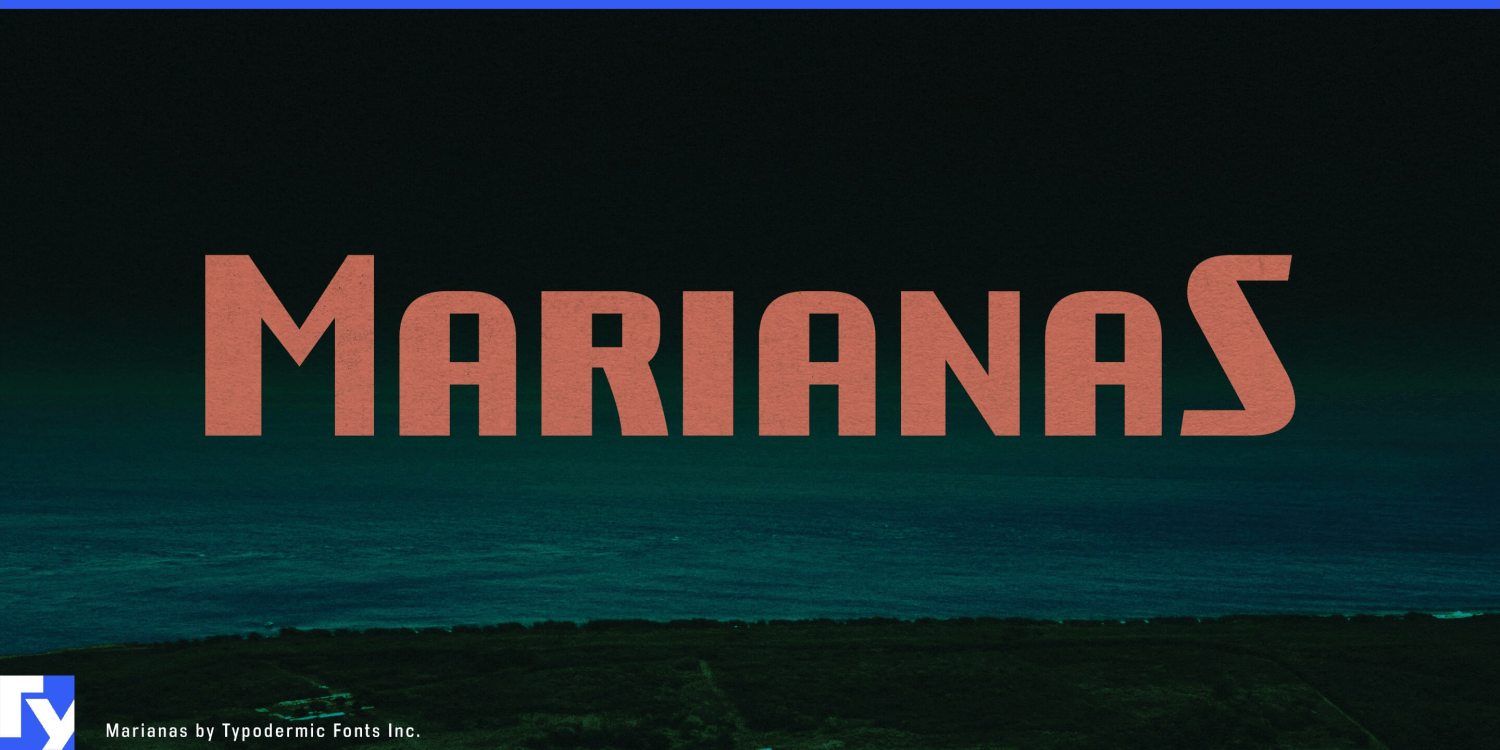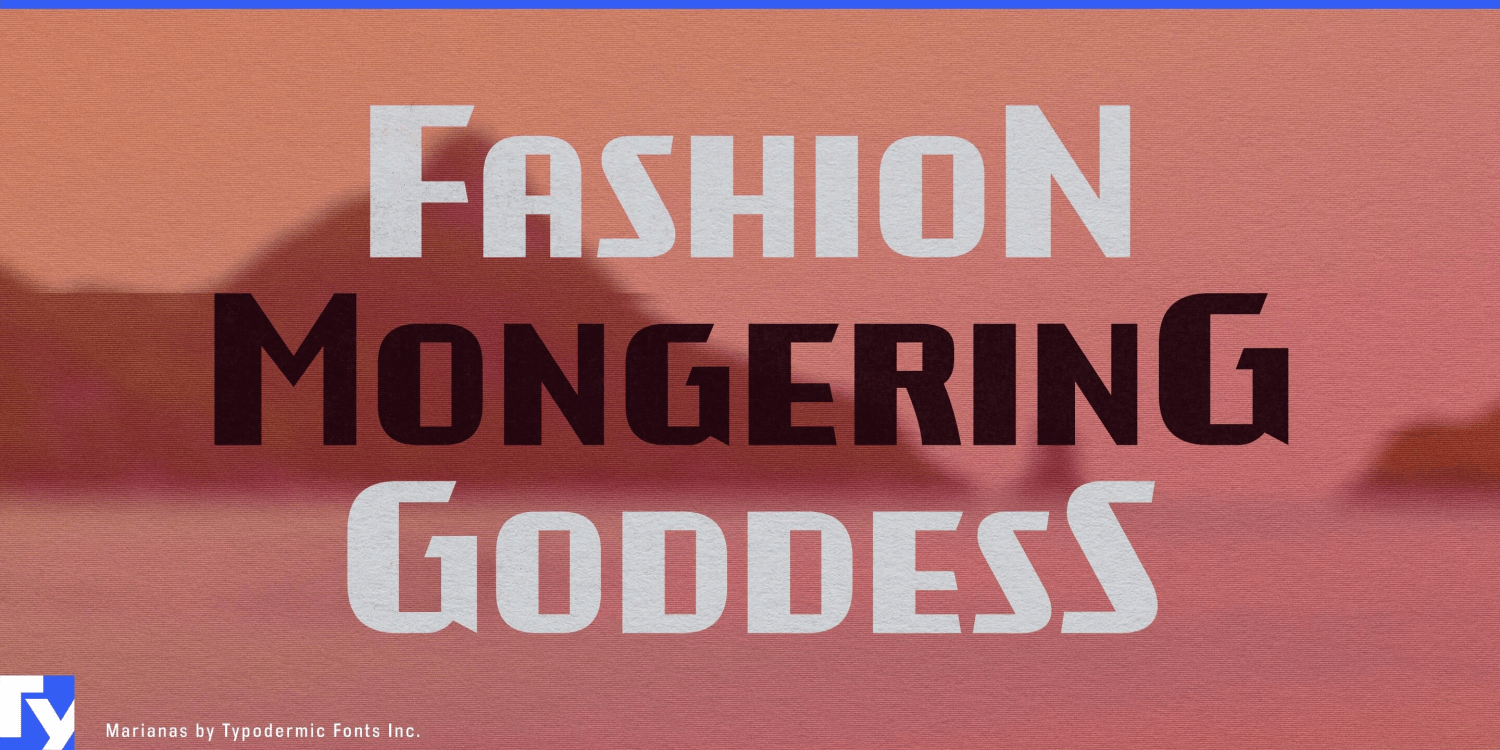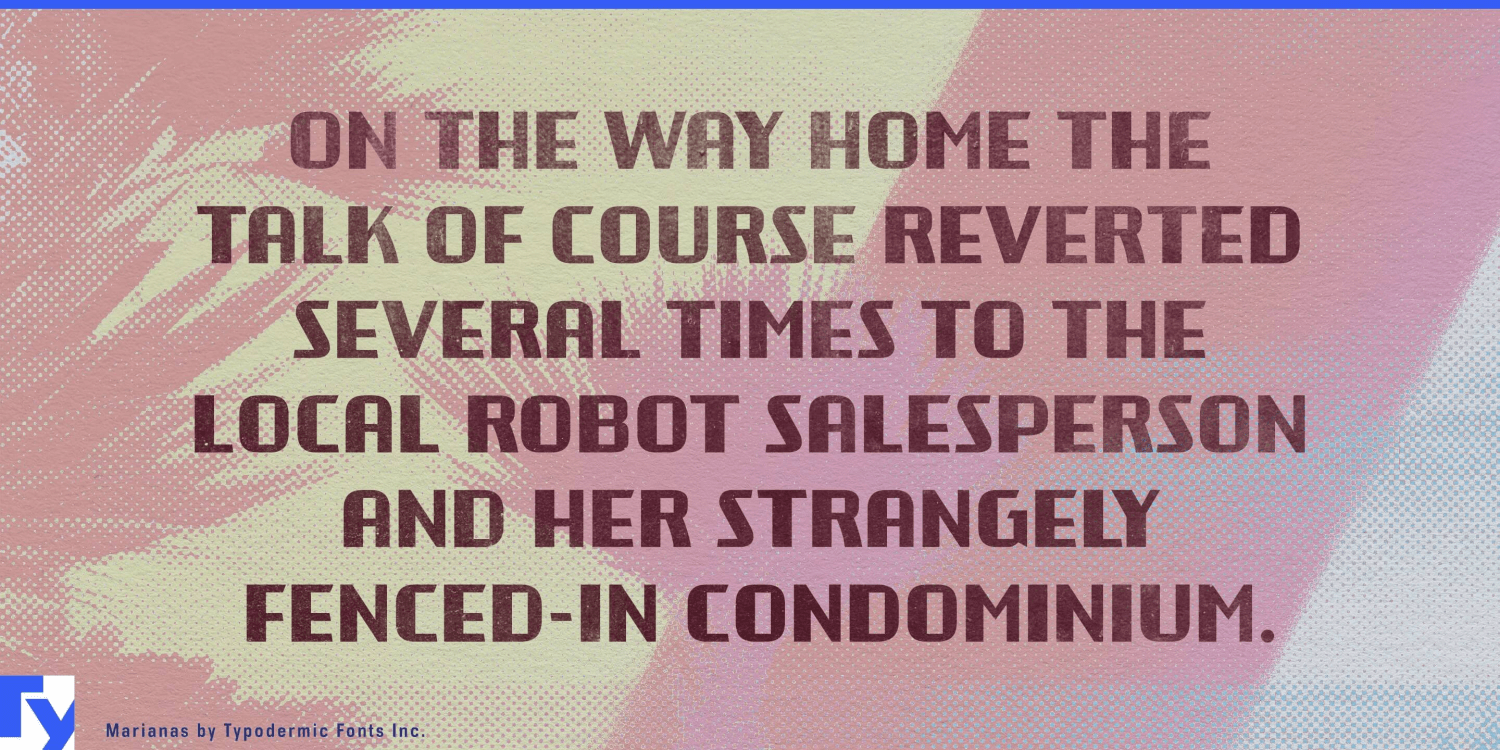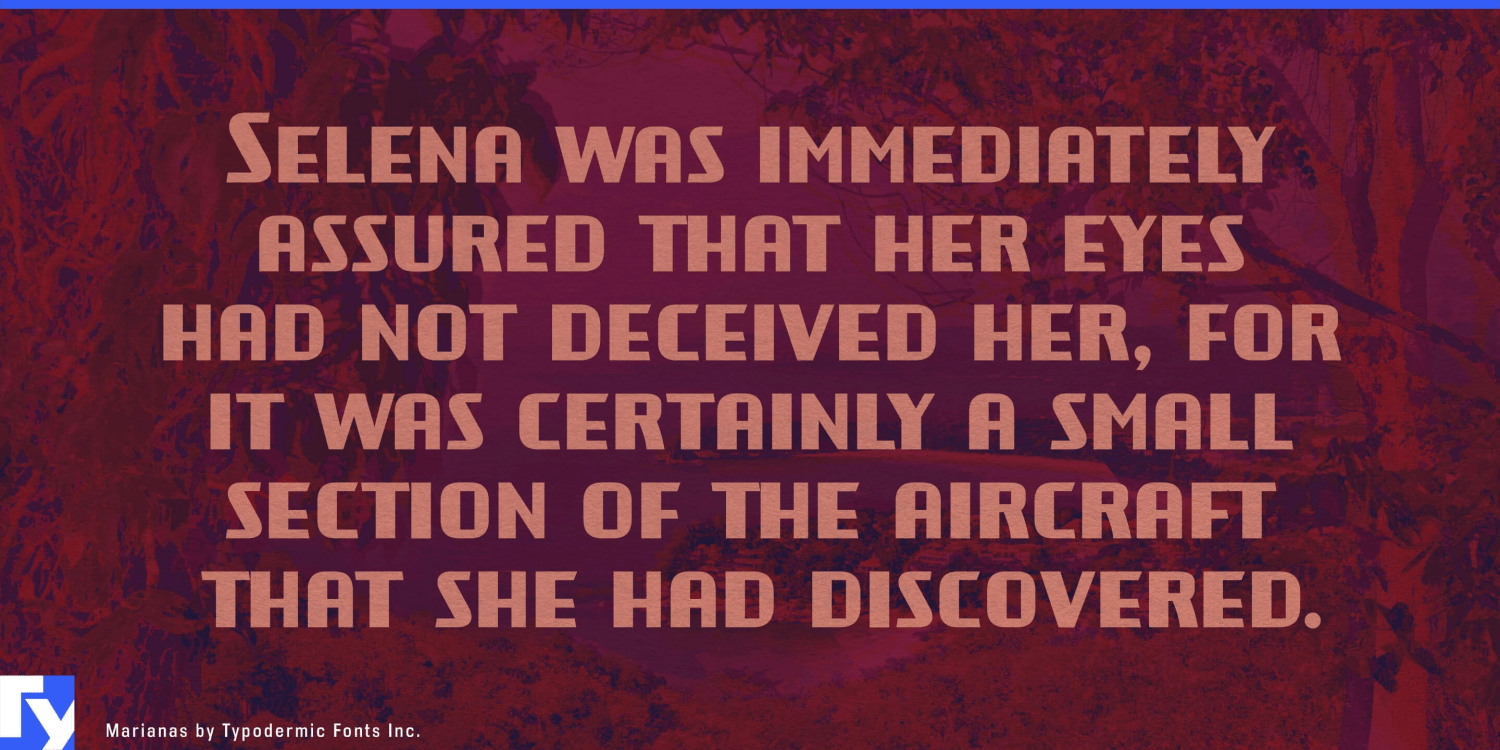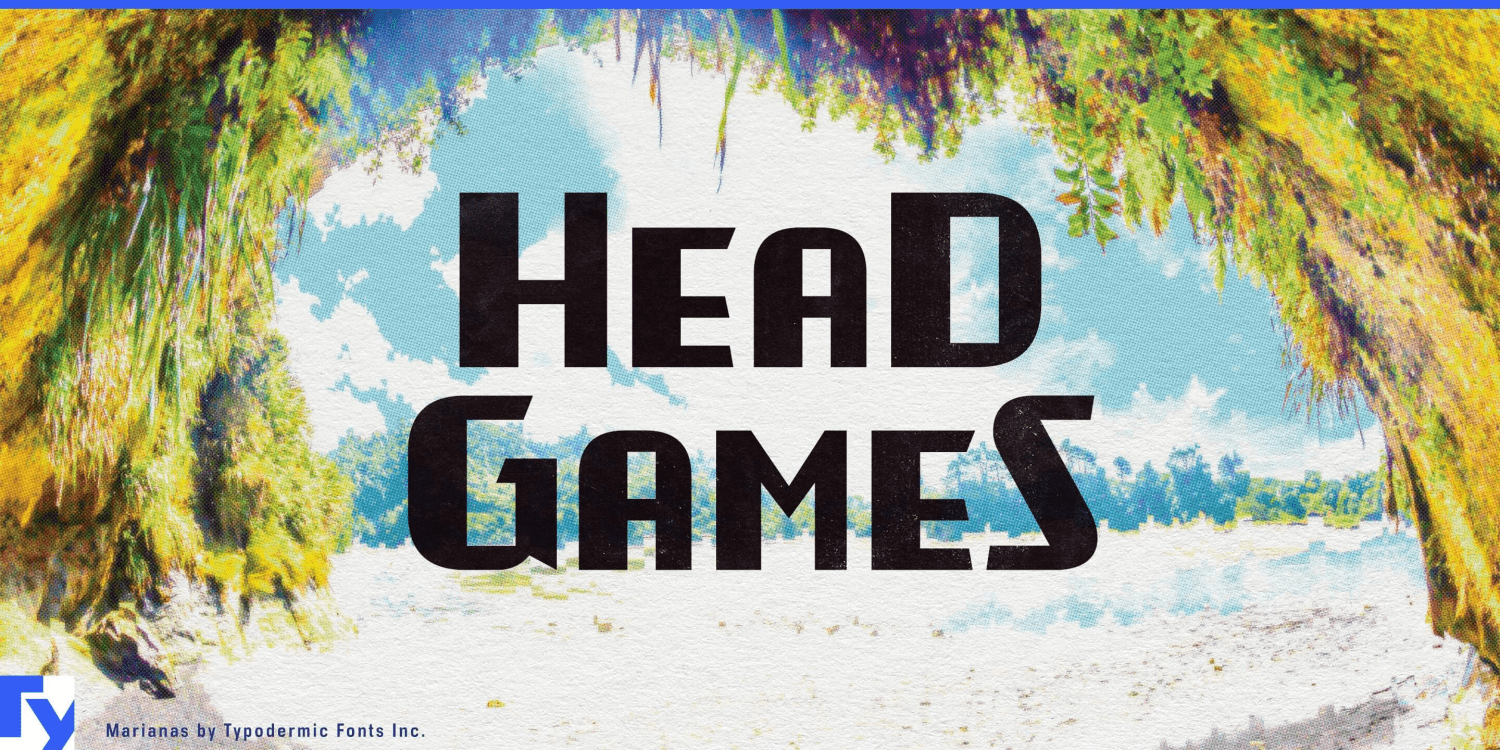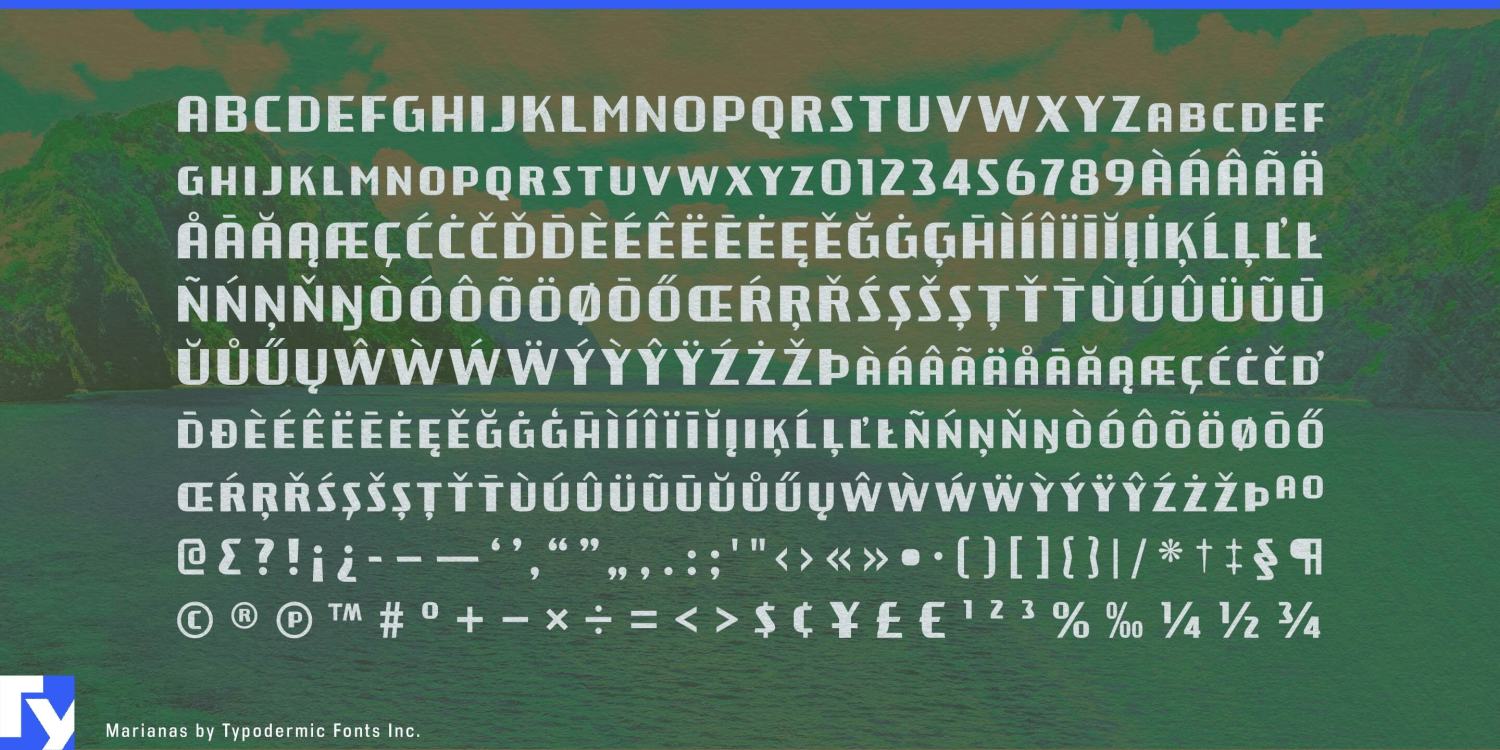
Marianas
Font Family by Typodermic
Marianas is built for the part of a tropical vacation that gets a name. The beach club, lagoon bar, dive center, sunset cruise, pool pavilion, marina, excursion, and souvenir shop all need lettering with more character than the practical sans used for schedules and instructions. Marianas fills that role with chunky all-caps forms that combine Art Deco geometry with a deliberately rough, unsophisticated construction. It feels tropical without borrowing the visual language of any particular island culture.